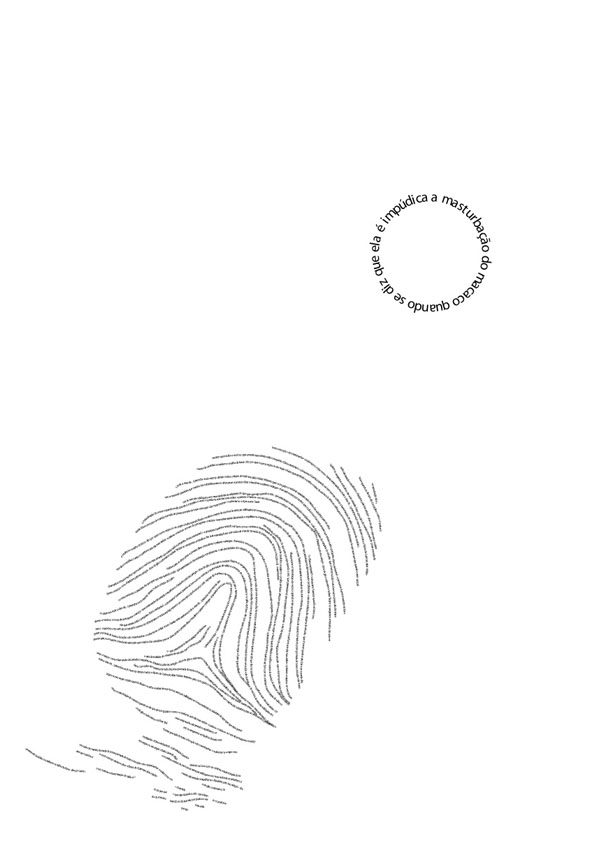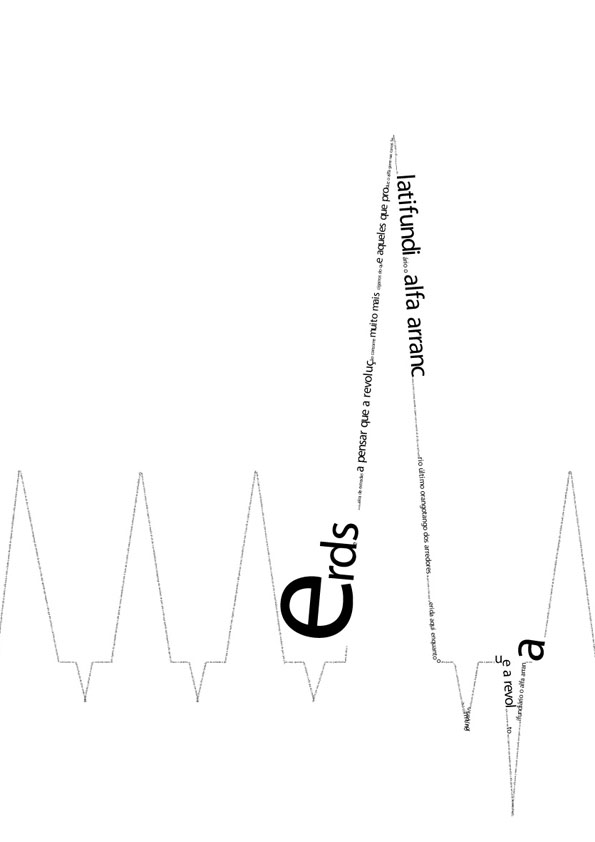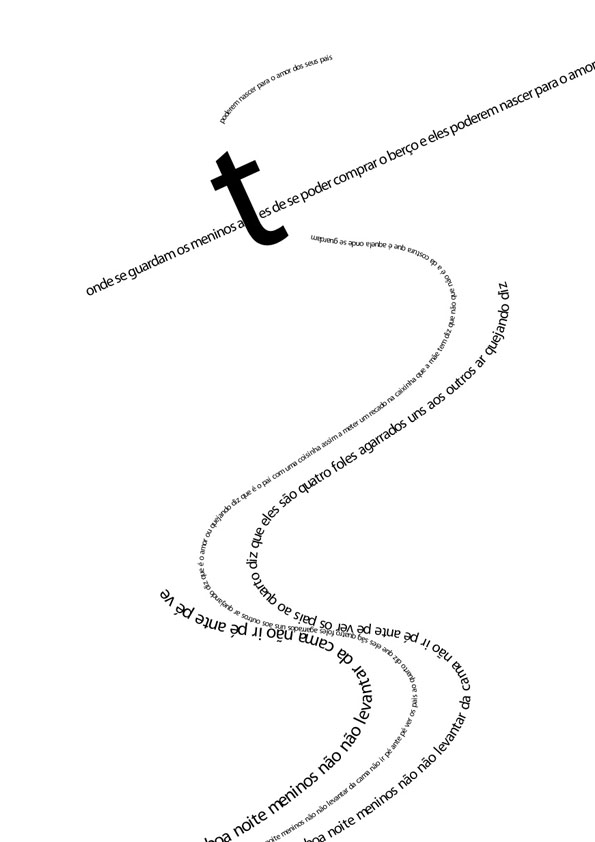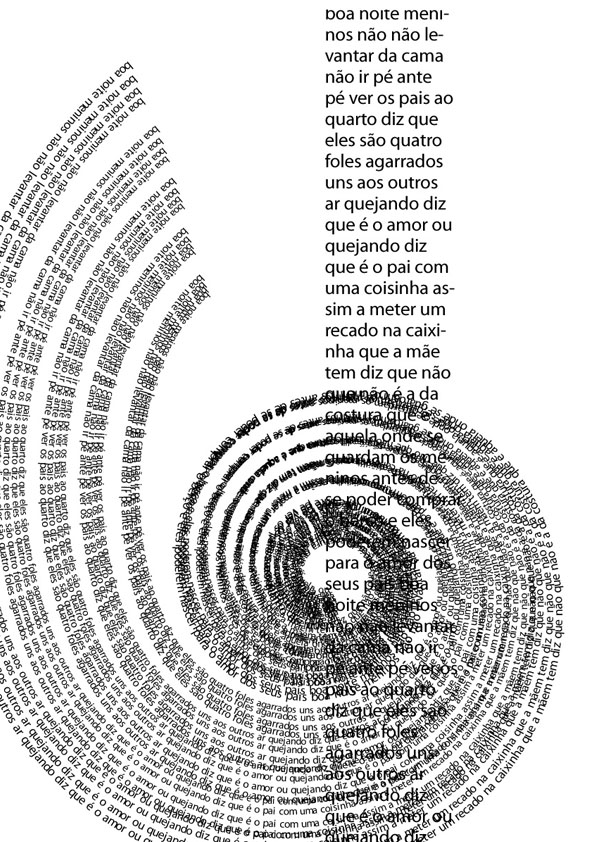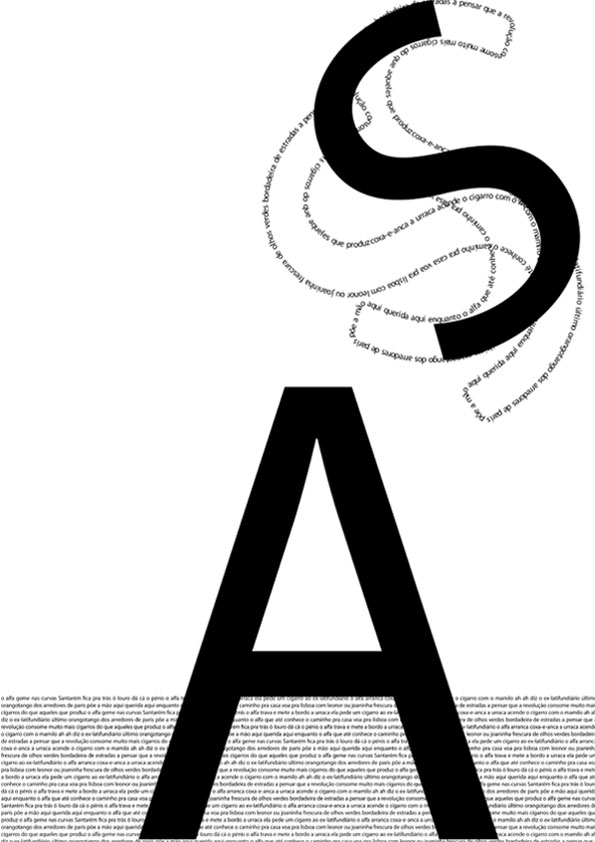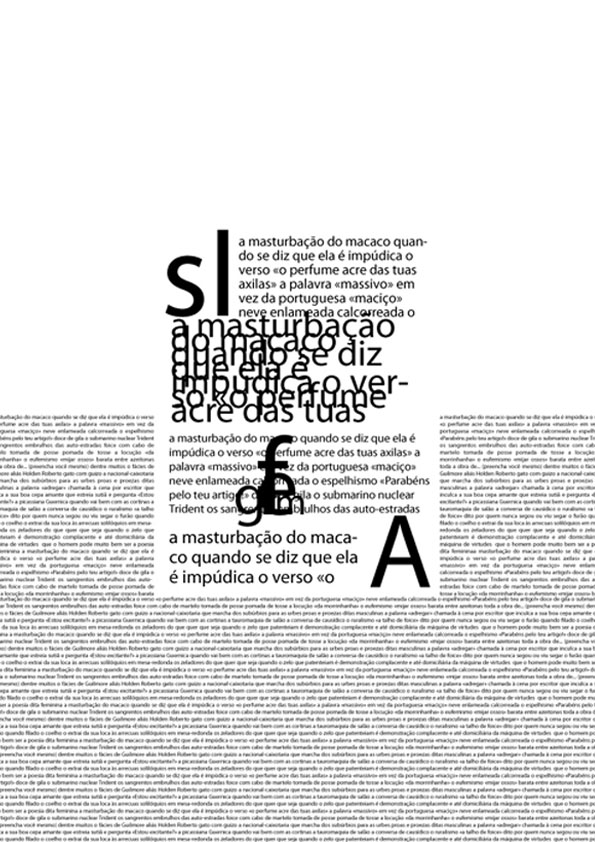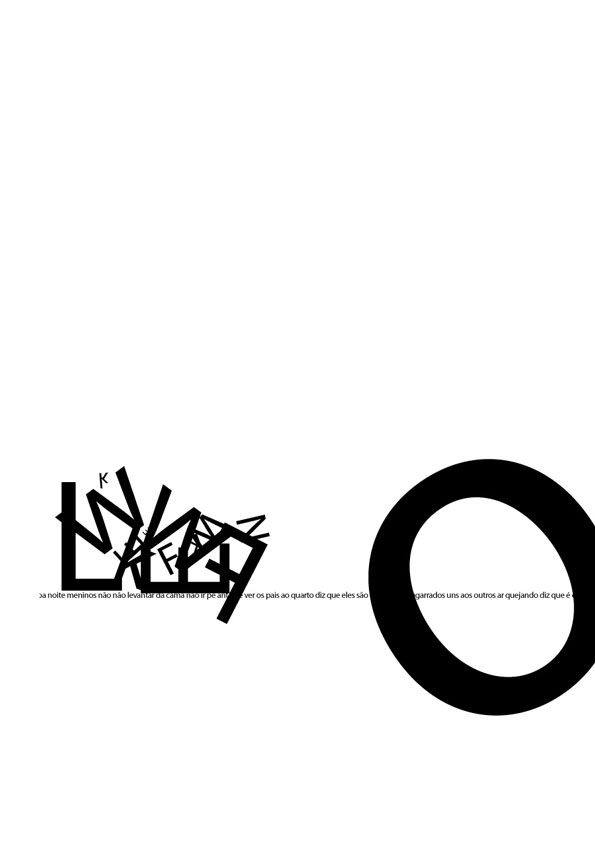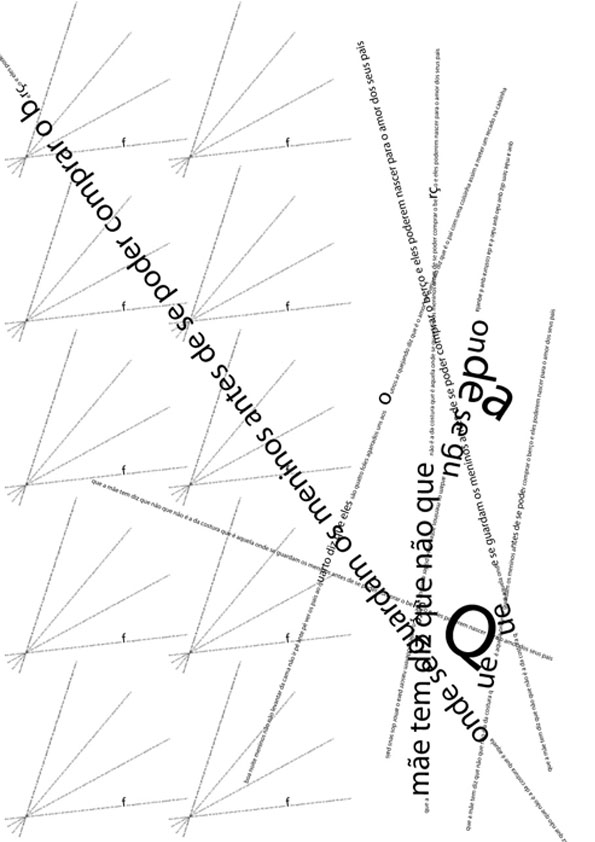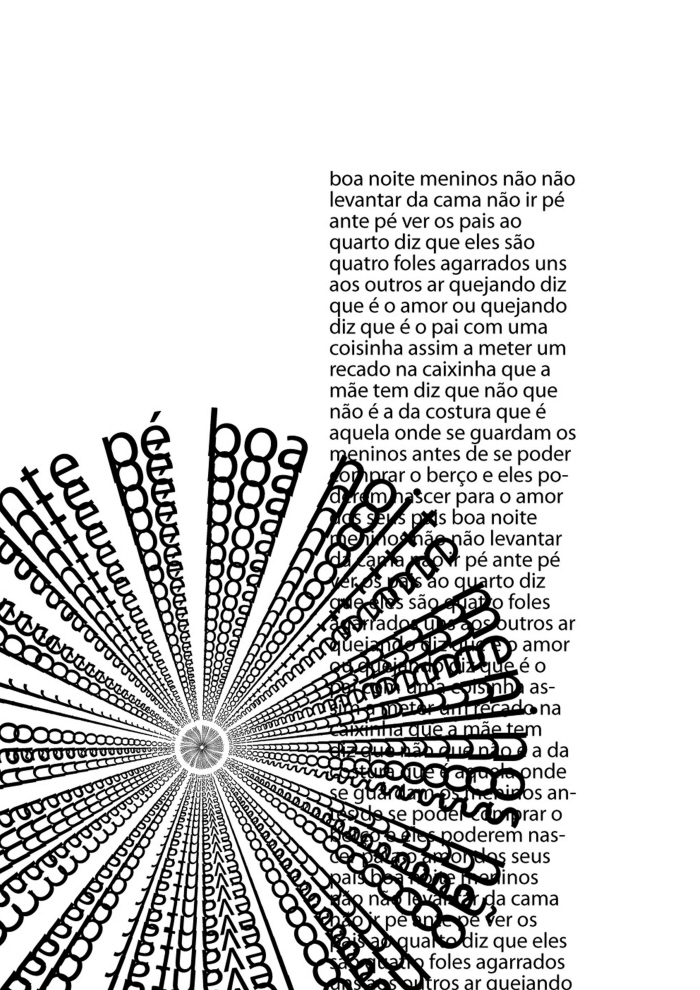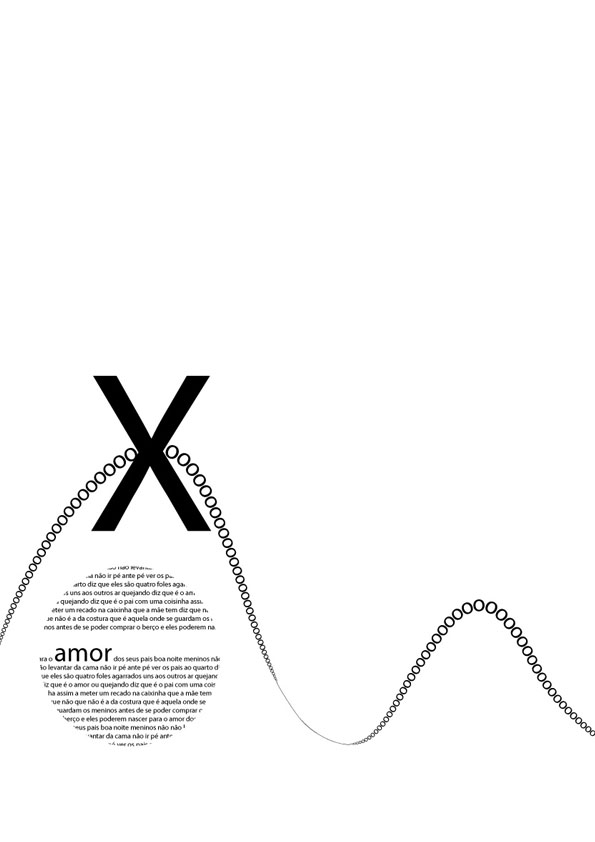
Tipografia
Ponto > Movimento > Definido > Ambiguo - Academic work based on formal elements such as the point, the line and the plan combined through the use of ambiguous concepts. The texts used are quotes from poems by portuguese poem writer Alexandre O ' Neill.
Ponto > Movimento > Estatico > Activo - Academic work based on formal elements such as the point, the line and the plan combined through the use of ambiguous concepts. The texts used are quotes from poems by portuguese poem writer Alexandre O ' Neill.
Ponto > Ritmo > Repeticao > Contraste - Academic work based on formal elements such as the point, the line and the plan combined through the use of ambiguous concepts. The texts used are quotes from poems by portuguese poem writer Alexandre O ' Neill.
Ponto > Textura > Suave > Rugoso - Academic work based on formal elements such as the point, the line and the plan combined through the use of ambiguous concepts. The texts used are quotes from poems by portuguese poem writer Alexandre O ' Neill.
Ponto > Tonalidade > Claro > Escuro - Academic work based on formal elements such as the point, the line and the plan combined through the use of ambiguous concepts. The texts used are quotes from poems by portuguese poem writer Alexandre O ' Neill.
Linha > Estrutura > Organico > Geometrico - Academic work based on formal elements such as the point, the line and the plan combined through the use of ambiguous concepts. The texts used are quotes from poems by portuguese poem writer Alexandre O ' Neill.
Linha > Movimento > Vertical > Horizontal - Academic work based on formal elements such as the point, the line and the plan combined through the use of ambiguous concepts. The texts used are quotes from poems by portuguese poem writer Alexandre O ' Neill.
Linha > Ritmo > Linear > Nao Linear - Academic work based on formal elements such as the point, the line and the plan combined through the use of ambiguous concepts. The texts used are quotes from poems by portuguese poem writer Alexandre O ' Neill.
Linha > Ritmo > Tonal > Atonal - Academic work based on formal elements such as the point, the line and the plan combined through the use of ambiguous concepts. The texts used are quotes from poems by portuguese poem writer Alexandre O ' Neill.
Linha > Textura > Padrao > Aleatorio - Academic work based on formal elements such as the point, the line and the plan combined through the use of ambiguous concepts. The texts used are quotes from poems by portuguese poem writer Alexandre O ' Neill.
Plano > Estrutura > Ordem > Caos - Academic work based on formal elements such as the point, the line and the plan combined through the use of ambiguous concepts. The texts used are quotes from poems by portuguese poem writer Alexandre O ' Neill.
Plano > Estrutura > Uniforme > Contraste - Exercício académico baseado em princípios formais como o ponto, a linha e o plano e conceitos ambiguos. Os textos utilizados são excertos de poemas do poeta português Alexandre O´Neill.
Plano > Movimento > Estatico > Activo [1] - Academic work based on formal elements such as the point, the line and the plan combined through the use of ambiguous concepts. The texts used are quotes from poems by portuguese poem writer Alexandre O ' Neill.
Plano > Movimento > Estatico > Activo [2] - Academic work based on formal elements such as the point, the line and the plan combined through the use of ambiguous concepts. The texts used are quotes from poems by portuguese poem writer Alexandre O ' Neill.
Plano > Textura > Regular > Irregular - Academic work based on formal elements such as the point, the line and the plan combined through the use of ambiguous concepts. The texts used are quotes from poems by portuguese poem writer Alexandre O ' Neill.
Plano > Tonalidade > Positivo > Negativo - Academic work based on formal elements such as the point, the line and the plan combined through the use of ambiguous concepts. The texts used are quotes from poems by portuguese poem writer Alexandre O ' Neill.
Livro de Bordo [Tipografia] - 1st fase of an academic work in wich we were asked to illustrate concepts and images described within a poem or a text quote of our choice.
Once more, I used a poem from Alexandre O ' Neill.
Livro de Bordo [Tipografia] - 1st fase of an academic work in wich we were asked to illustrate concepts and images described within a poem or a text quote of our choice.
Once more, I used a poem from Alexandre O ' Neill.
Livro de Bordo [Tipografia] - 1st fase of an academic work in wich we were asked to illustrate concepts and images described within a poem or a text quote of our choice.
Once more, I used a poem from Alexandre O ' Neill.
Livro de Bordo [Tipografia] - 1st fase of an academic work in wich we were asked to illustrate concepts and images described within a poem or a text quote of our choice.
Once more, I used a poem from Alexandre O ' Neill.
Livro de Bordo [Tipografia] - 1st fase of an academic work in wich we were asked to illustrate concepts and images described within a poem or a text quote of our choice.
Once more, I used a poem from Alexandre O ' Neill.
Livro de Bordo [Tipografia] - 1st fase of an academic work in wich we were asked to illustrate concepts and images described within a poem or a text quote of our choice.
Once more, I used a poem from Alexandre O ' Neill.
Livro de Bordo [Tipografia] - 1st fase of an academic work in wich we were asked to illustrate concepts and images described within a poem or a text quote of our choice.
Once more, I used a poem from Alexandre O ' Neill.
Livro de Bordo [Tipografia] - 1st fase of an academic work in wich we were asked to illustrate concepts and images described within a poem or a text quote of our choice.
Once more, I used a poem from Alexandre O ' Neill.
Livro de Bordo [Tipografia] - 1st fase of an academic work in wich we were asked to illustrate concepts and images described within a poem or a text quote of our choice.
Once more, I used a poem from Alexandre O ' Neill.
Livro de Bordo [Tipografia] - 1st fase of an academic work in wich we were asked to illustrate concepts and images described within a poem or a text quote of our choice.
Once more, I used a poem from Alexandre O ' Neill.
Livro de Bordo [Tipografia] - 1st fase of an academic work in wich we were asked to illustrate concepts and images described within a poem or a text quote of our choice.
Once more, I used a poem from Alexandre O ' Neill.
Livro de Bordo [Tipografia] - 1st fase of an academic work in wich we were asked to illustrate concepts and images described within a poem or a text quote of our choice.
Once more, I used a poem from Alexandre O ' Neill.